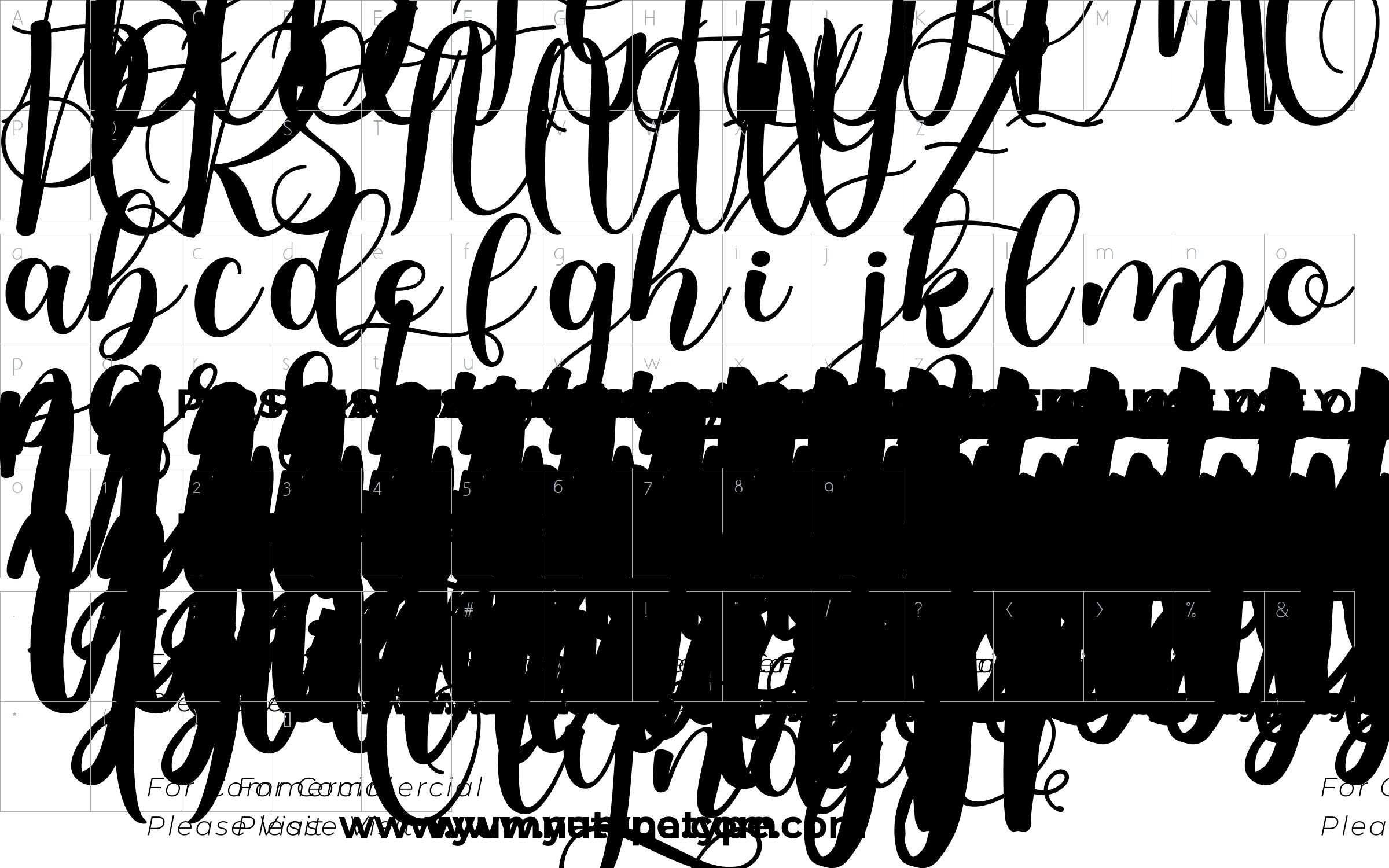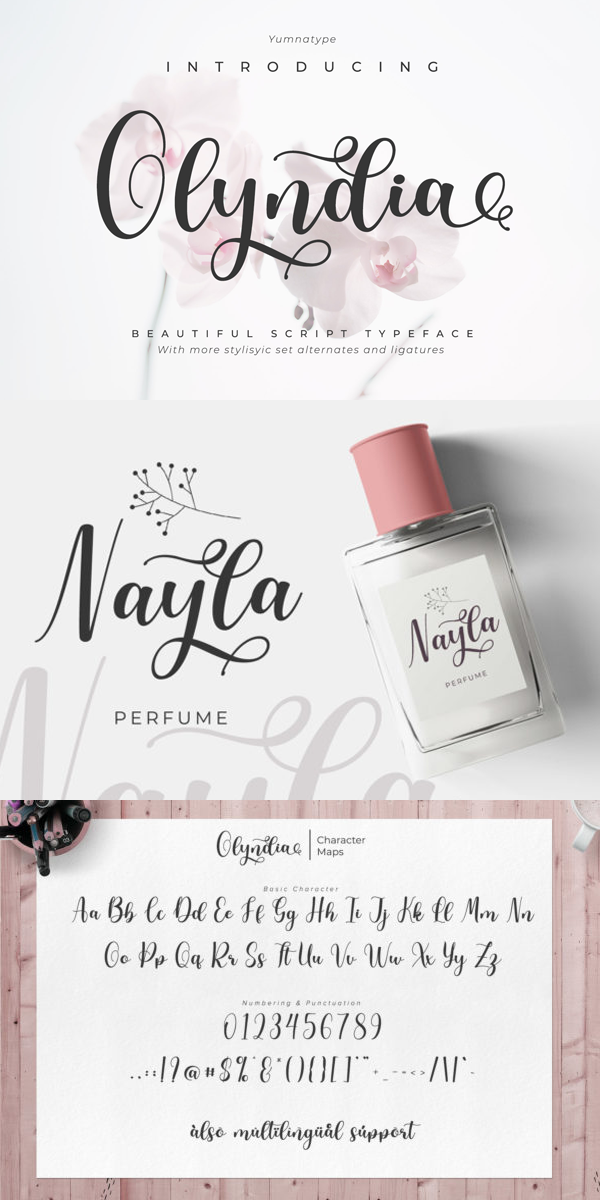
Olyndia Font
About Olyndia
Olyndia is a beautiful script font with a natural and unique design will make your project more beautiful and powerful. The font is suitable for your branding project and any design.
– 10 Alternates
– 52 Swashes
– 6 ligarures